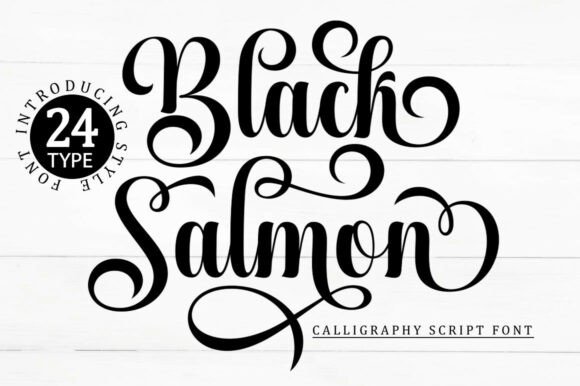
Introducing Black Salmon
Black Salmon is a stunning typeface defined by its dramatic, high-contrast strokes and sweeping, rhythmic flourishes that give every word a bespoke, hand-inked feel. With elegant loops and tapered terminals, this font seamlessly blends traditional penmanship with a modern aesthetic, making it an exceptional choice for luxury wedding stationery, artisanal branding, gourmet packaging, and chic editorial headers.
- ✨ Elegant and sophisticated design that’s perfect for high-end projects
- ✅ High-contrast strokes and sweeping flourishes that add a touch of drama
- 💫 Perfect for luxury wedding stationery, artisanal branding, and gourmet packaging
- 🎨 Works beautifully with OpenType features, glyphs, and stylistic alternates
While Black Salmon is an exceptional font, there are a few things to keep in mind:
- ⚠️ May not be suitable for body text due to its ornate design
- 🤔 Limited legibility at small font sizes
The Story Behind Black Salmon
Black Salmon was designed by a renowned type designer who wanted to create a font that embodied the elegance and sophistication of traditional calligraphy. Inspired by the flowing lines and fluid movements of handwriting, Black Salmon was crafted to bring a sense of bespoke luxury to any design project.
Q: Is Black Salmon suitable for body text?
A: While Black Salmon is an exceptional font, it may not be suitable for body text due to its ornate design. It’s best used for headlines, titles, and short paragraphs.
Q: Does Black Salmon come with OpenType features?
A: Yes, Black Salmon comes with a range of OpenType features, including glyphs and stylistic alternates, that can be accessed in compatible design software.